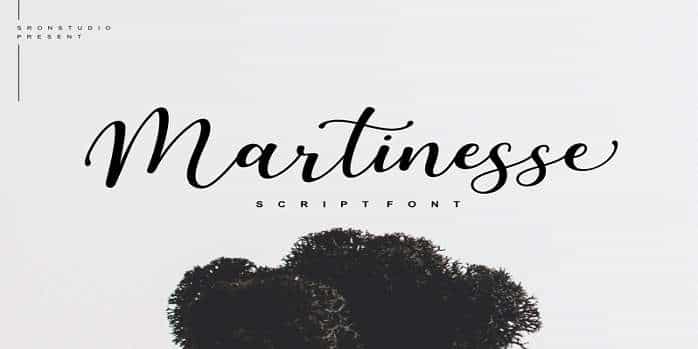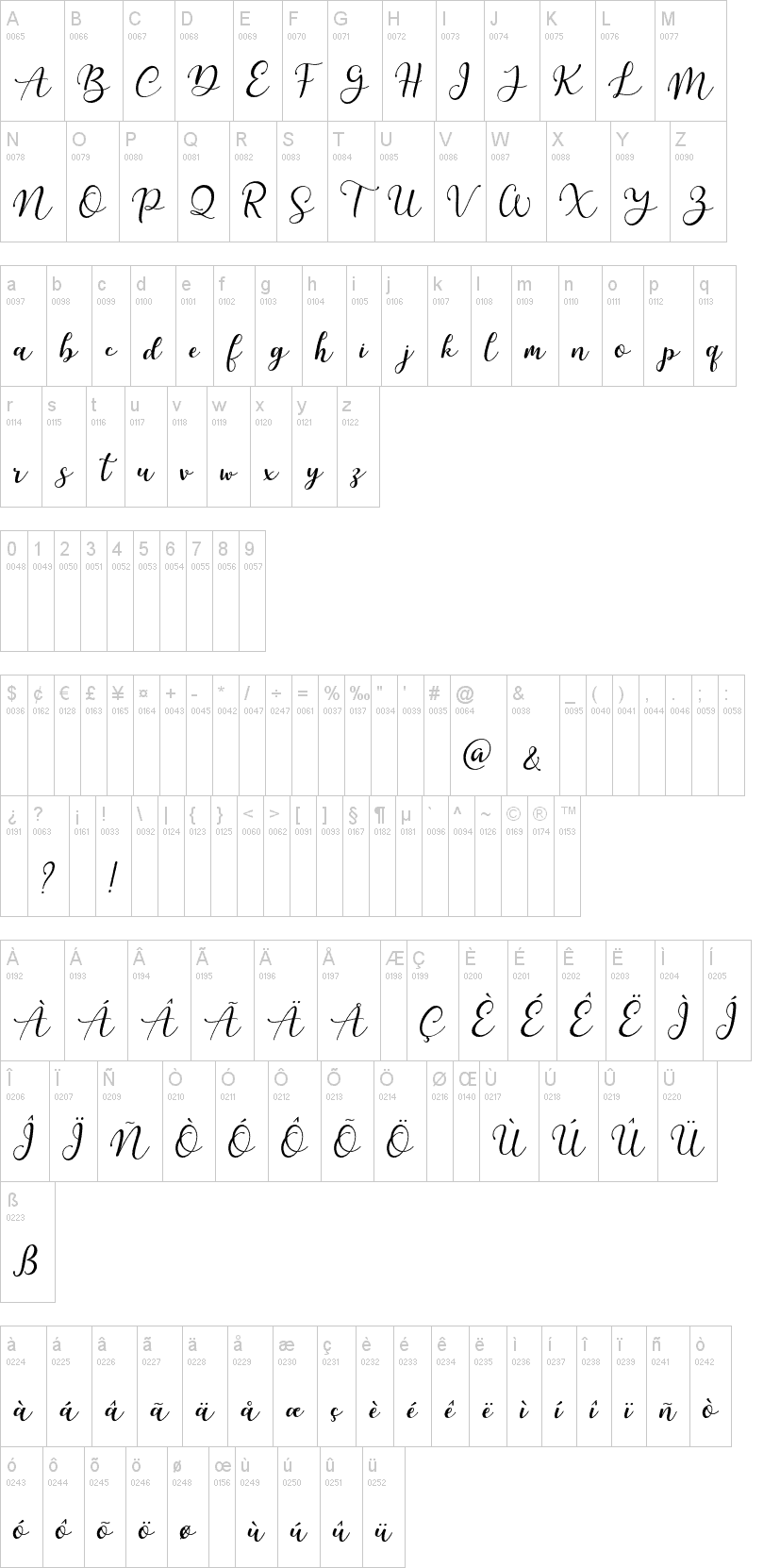
Martinesse is a beautiful Calligraphy font, created by Sronstudio, and it is available for free for personal use only. The free version has all the alphabets in both upper and lower case and a few more characters.